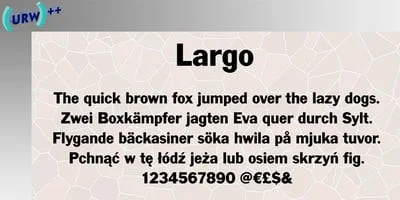
Largo Font
Largo Font is perfect for classical music institutions, symphony orchestras, opera houses, concert halls, musical education materials, classical record labels, prestigious cultural venues, fine arts organizations, and any project requiring typography with majestic musical grandeur and symphonic elegance.
What makes Largo Font exciting is its symphonic majesty that captures the slow, dignified tempo and emotional depth of classical music with expansive letterforms that reflect the grand scale and powerful expression of orchestral compositions. This distinguished typeface embodies the stately elegance of classical performance with broad, confident strokes that mirror the deliberate pacing and dramatic impact of largo movements in symphonic masterpieces. The font's musical sophistication and classical authority make it perfect for projects celebrating the timeless beauty and emotional power of orchestral music.
The Largo Font family includes regular and bold weights, featuring complete uppercase and lowercase alphabets, numerals, punctuation marks, and classical musical symbols. The font maintains consistent symphonic elegance throughout all weights while ensuring excellent readability for both dramatic headlines and detailed program notes in classical music and cultural applications.
Whether you're designing for symphony orchestras, creating classical music publications, or developing cultural institution branding with symphonic aesthetics, Largo Font delivers unmatched musical sophistication and classical grandeur to your projects. This magnificent typeface transforms ordinary text into powerful expressions of musical artistry that honor the finest traditions of classical performance and orchestral excellence. The font's majestic character makes it ideal for concert venues, music conservatories, and cultural organizations. Download this exceptional font today and bring the timeless grandeur of symphonic music to your design projects with authentic classical elegance and orchestral magnificence.